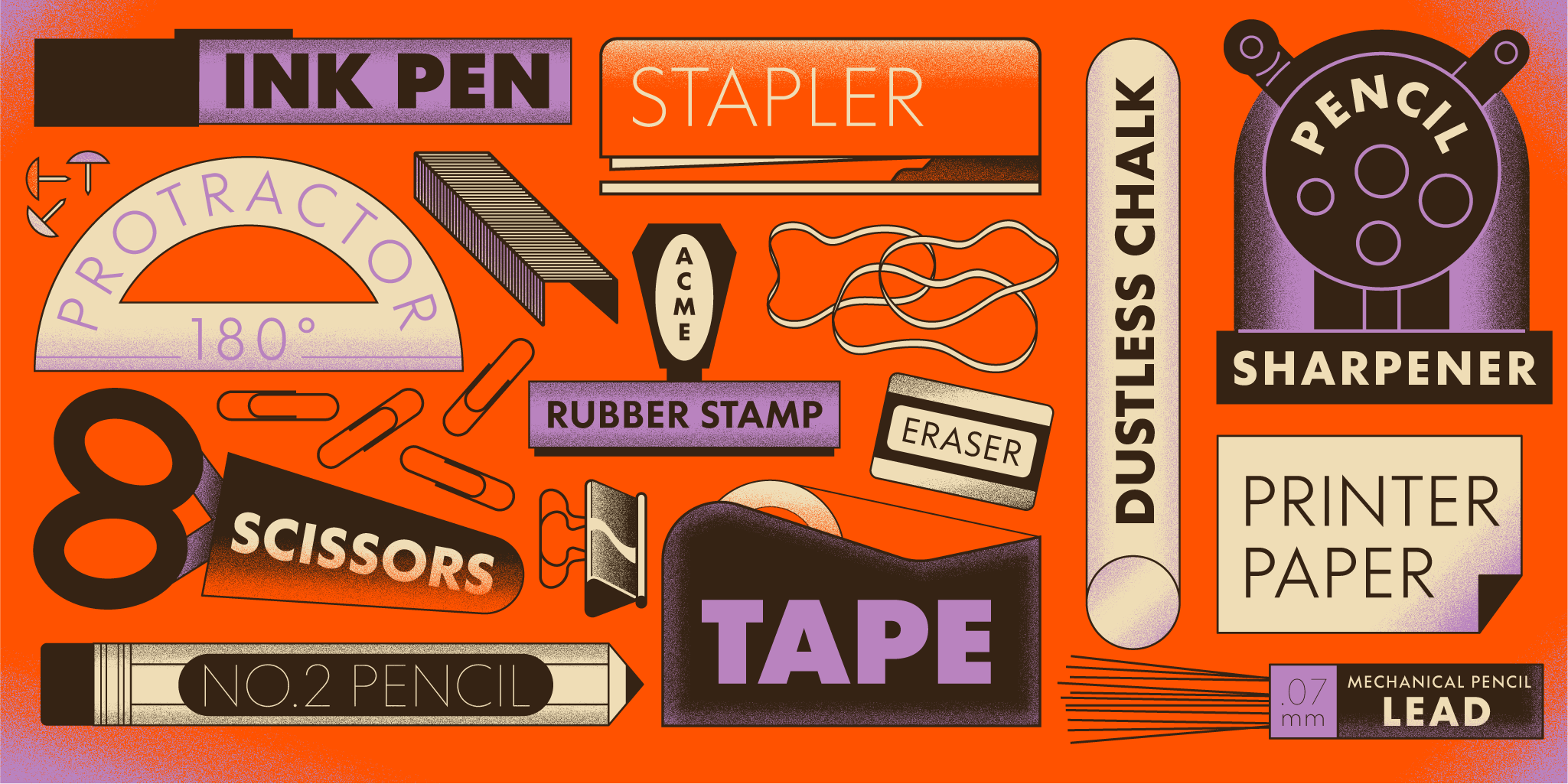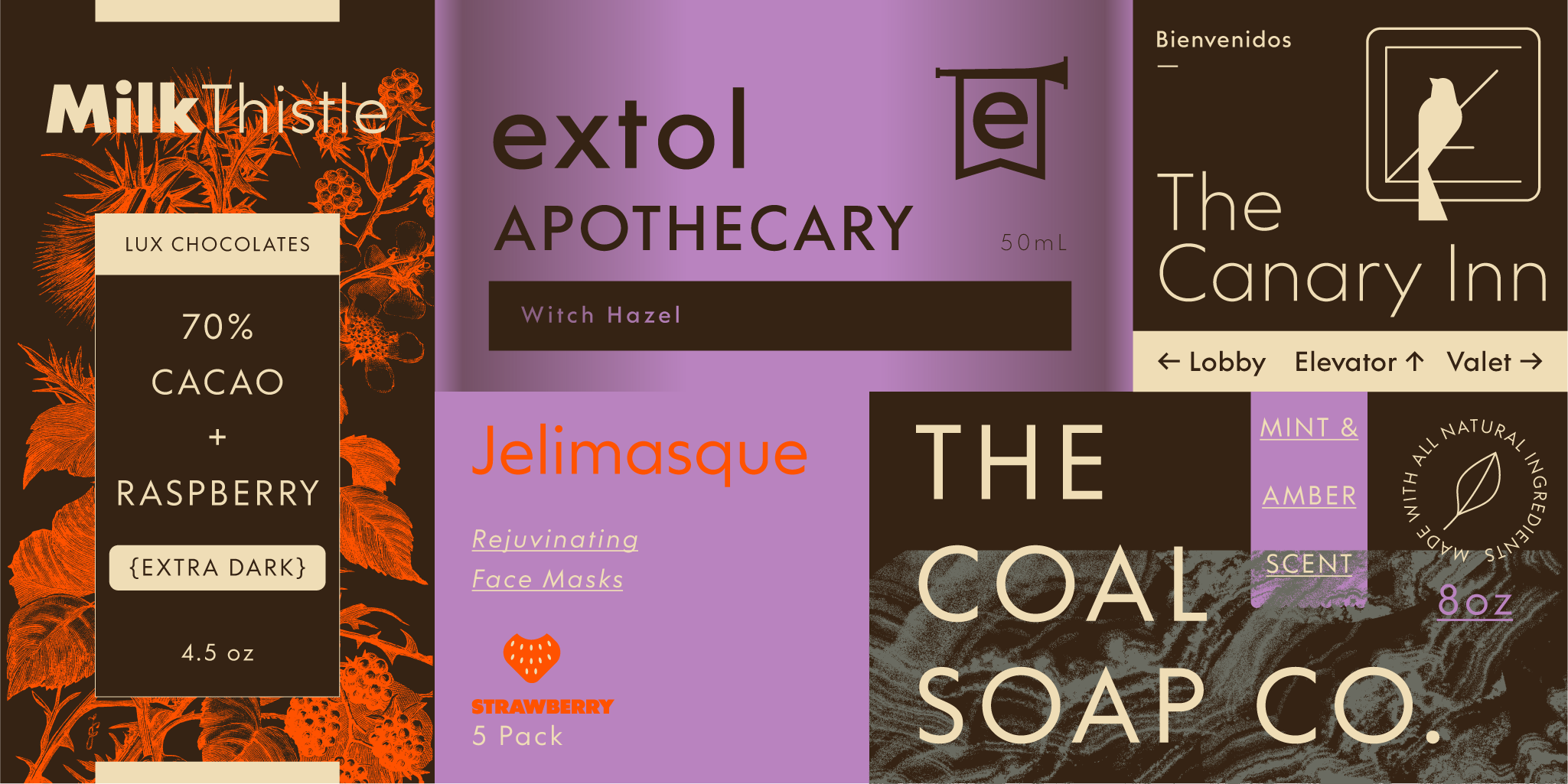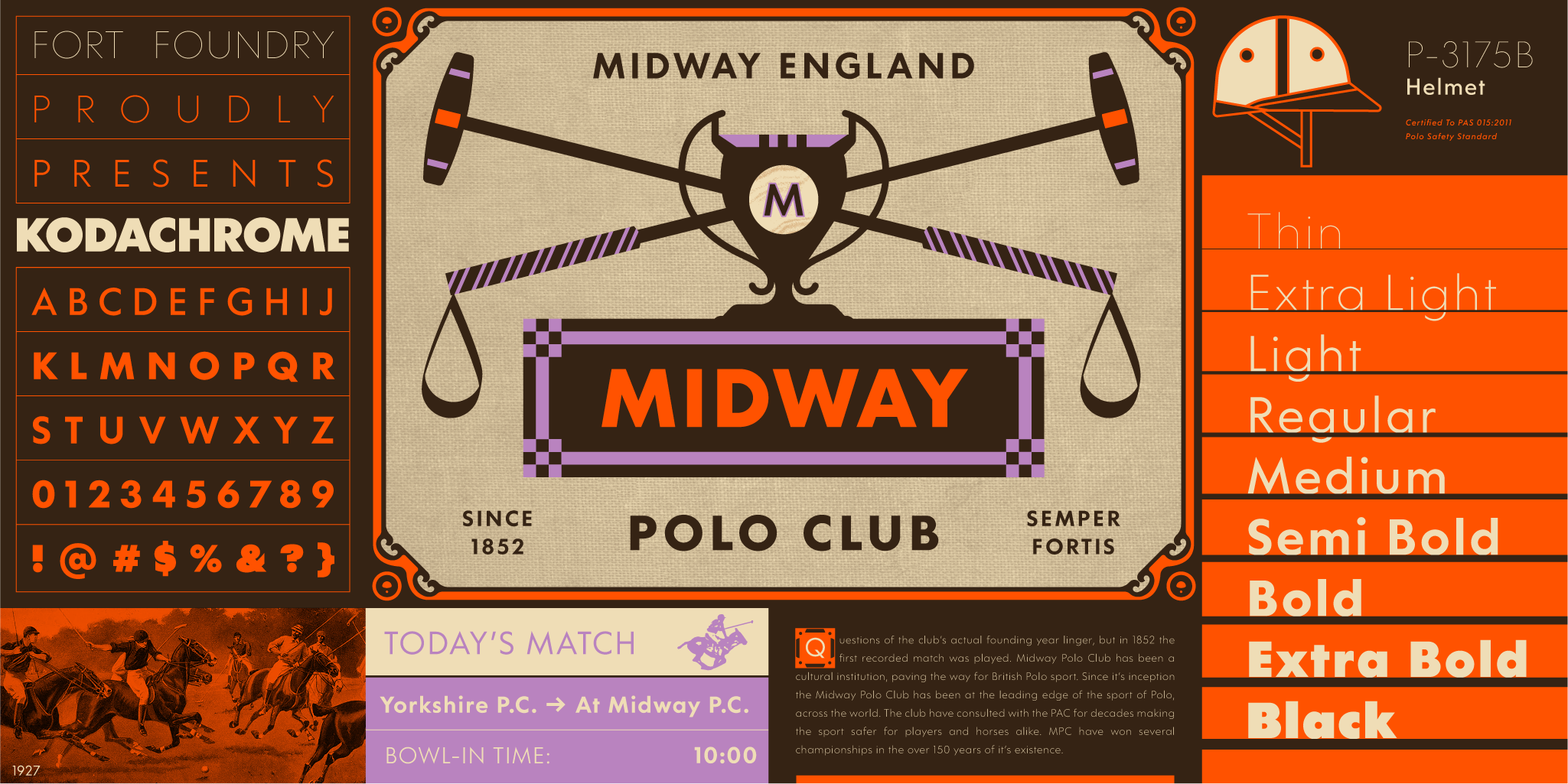
Kodachrome
Sans
“Mama don’t take my Kodachrome away.” –Rhymin’ Simon
When Paul Renner released Futura in 1927, do you think he knew it would still be so fashionably in use 99 years later? He might have had a clue after the first decade or two, as it spawned a slew of similar faces from Tempo to Spartan to Twentieth Century to Airport and more. As we dove into many of these specimens, one of the things that stood out was Spartan and Airport’s heaviest weight—Black. It goes harder and heavier than Futura’s Extra Bold and we fell head over heels. Our world turned to full color—Kodachrome if you will.
This is not an exact recreation of those families, though, as we sought to capture much of their spirit and bring it into our modern context. The geometry is plain to see, but more than a few quirks keep it from feeling dull or generic. The lighter weights can set cleanly at small sizes, and the heavier weights have a cast-metal heft built for headlines, logotype, and signage.